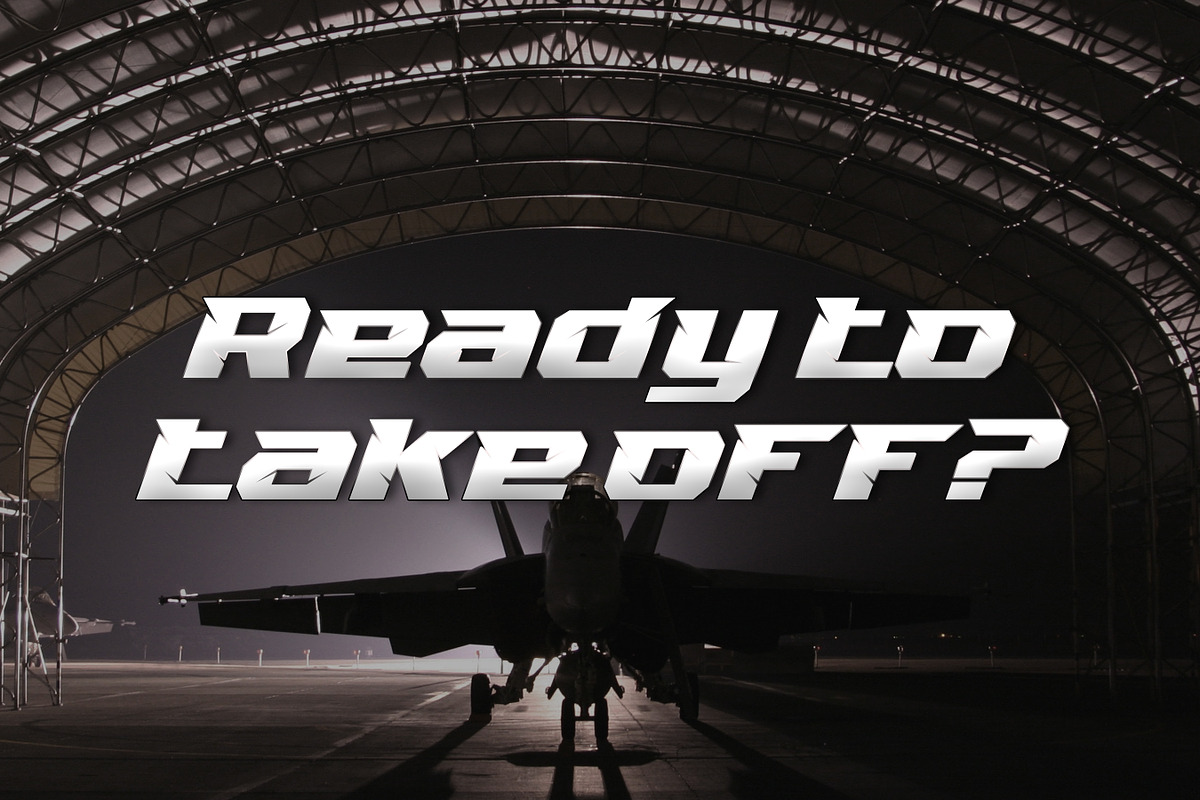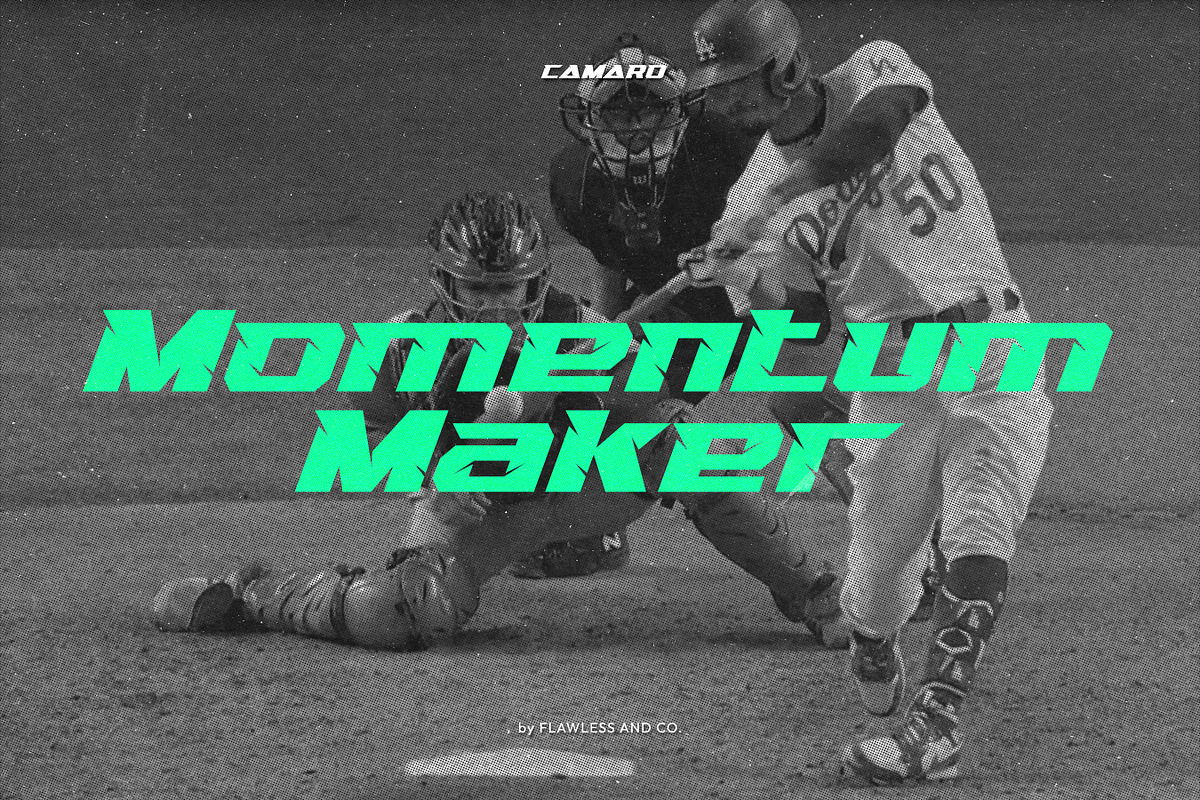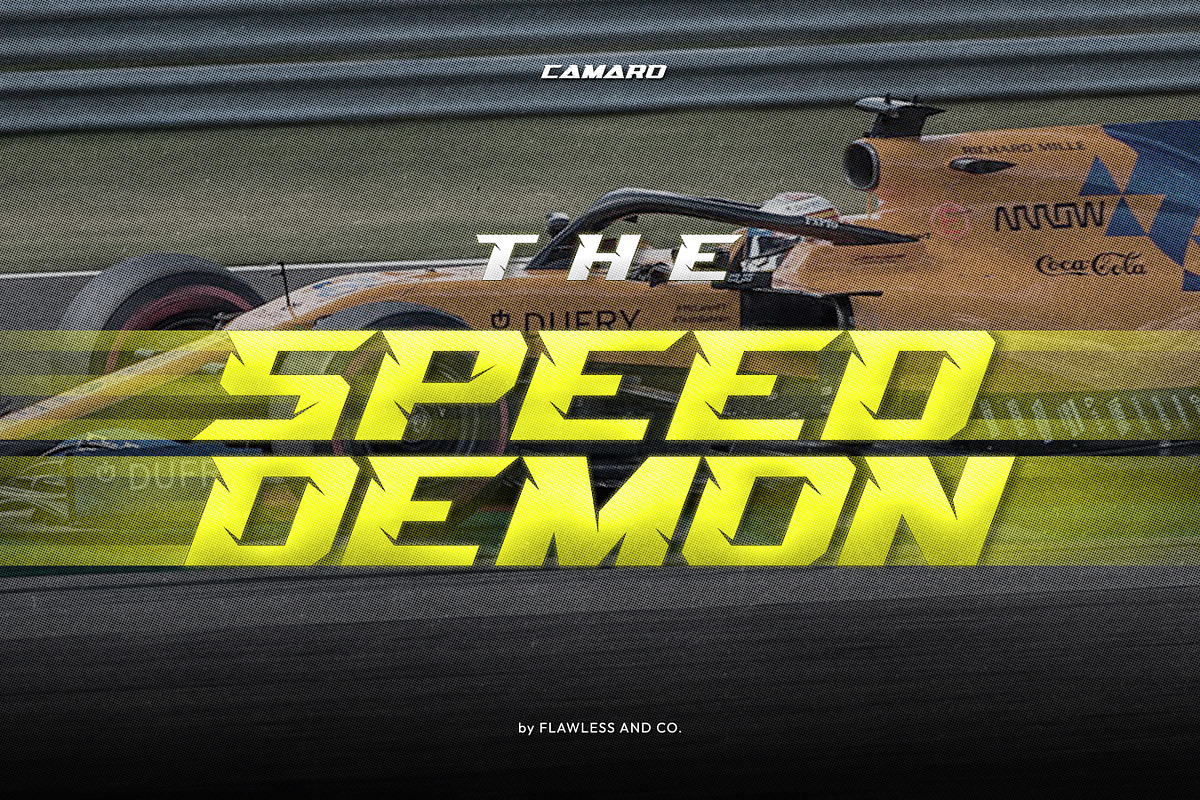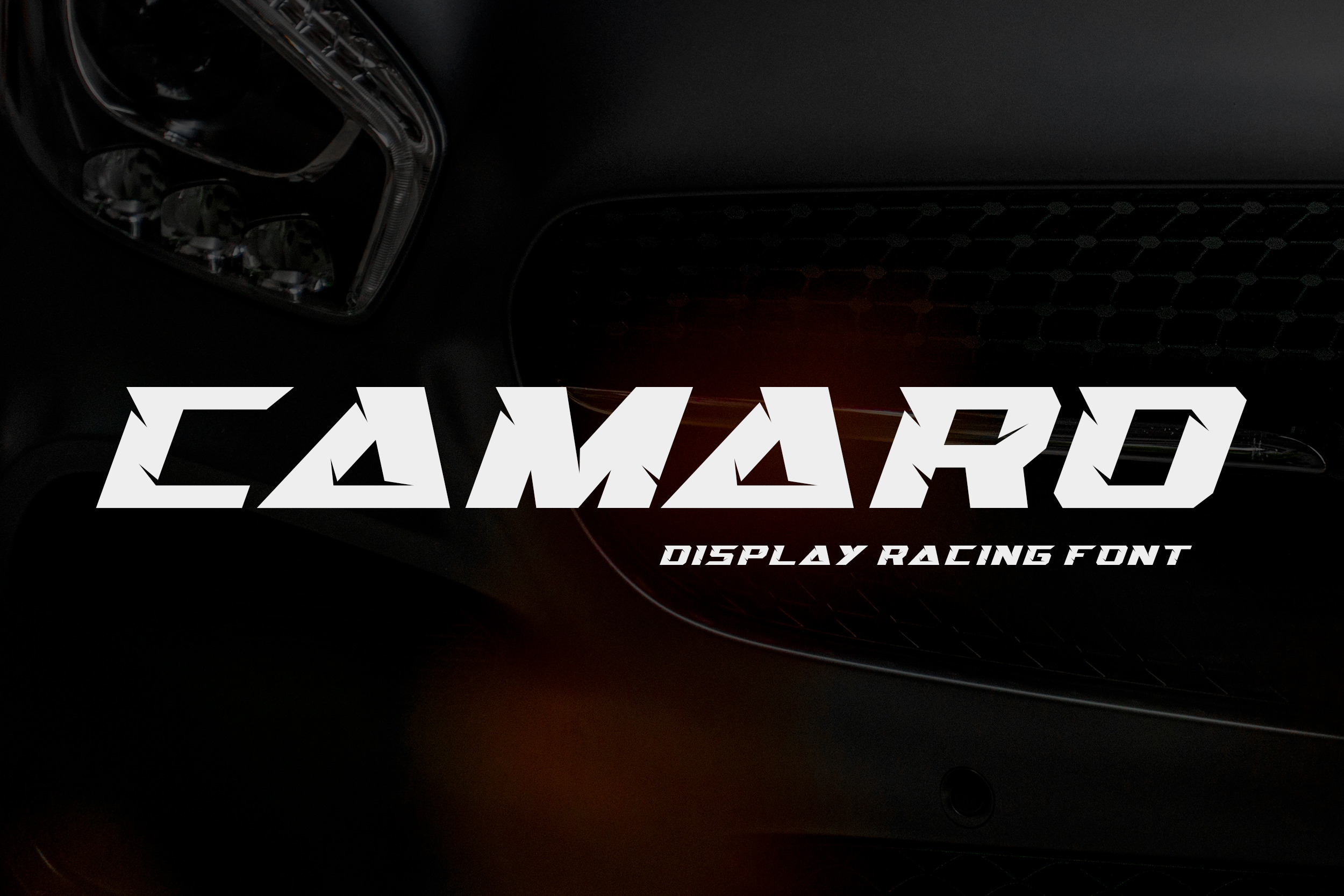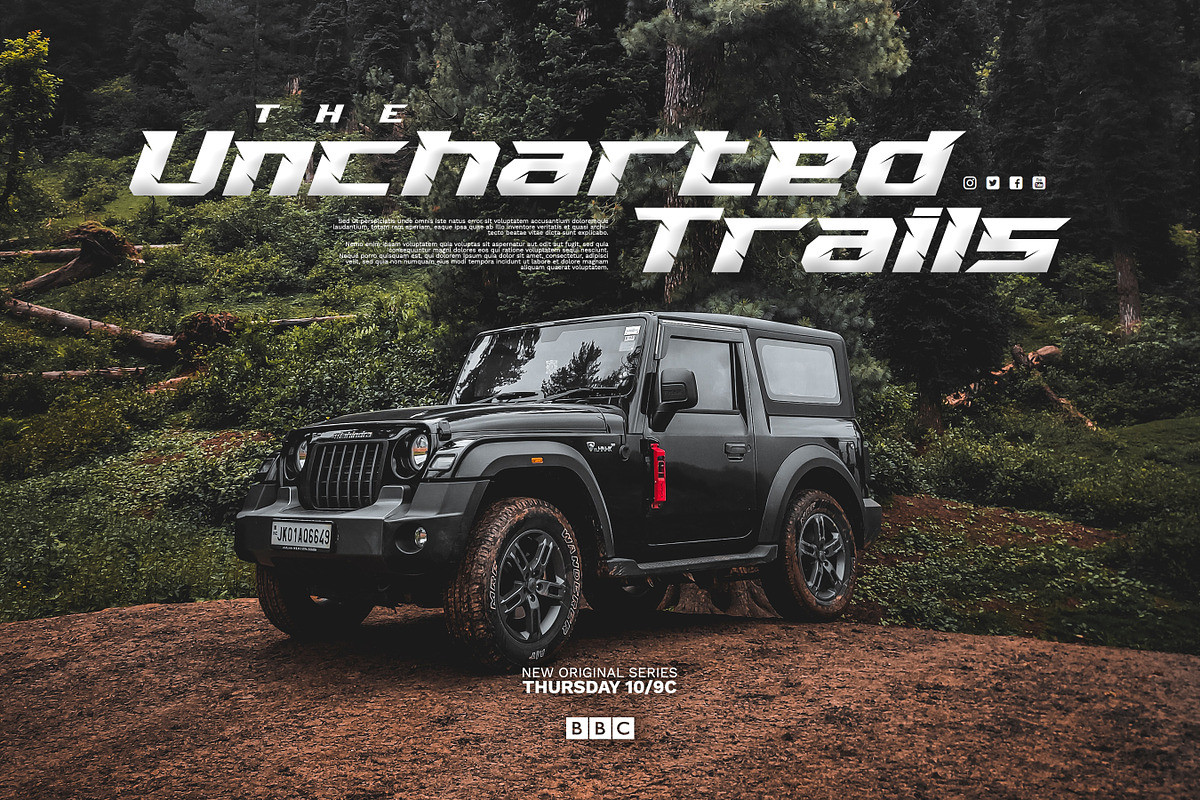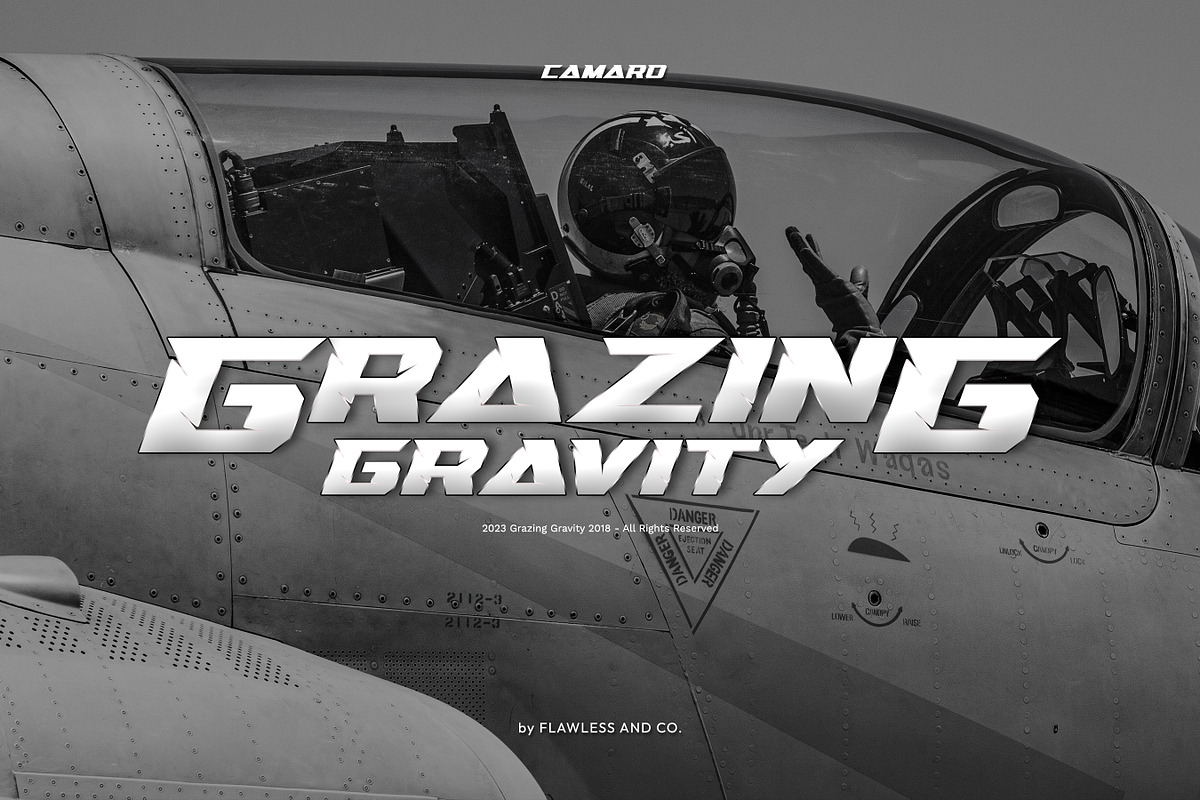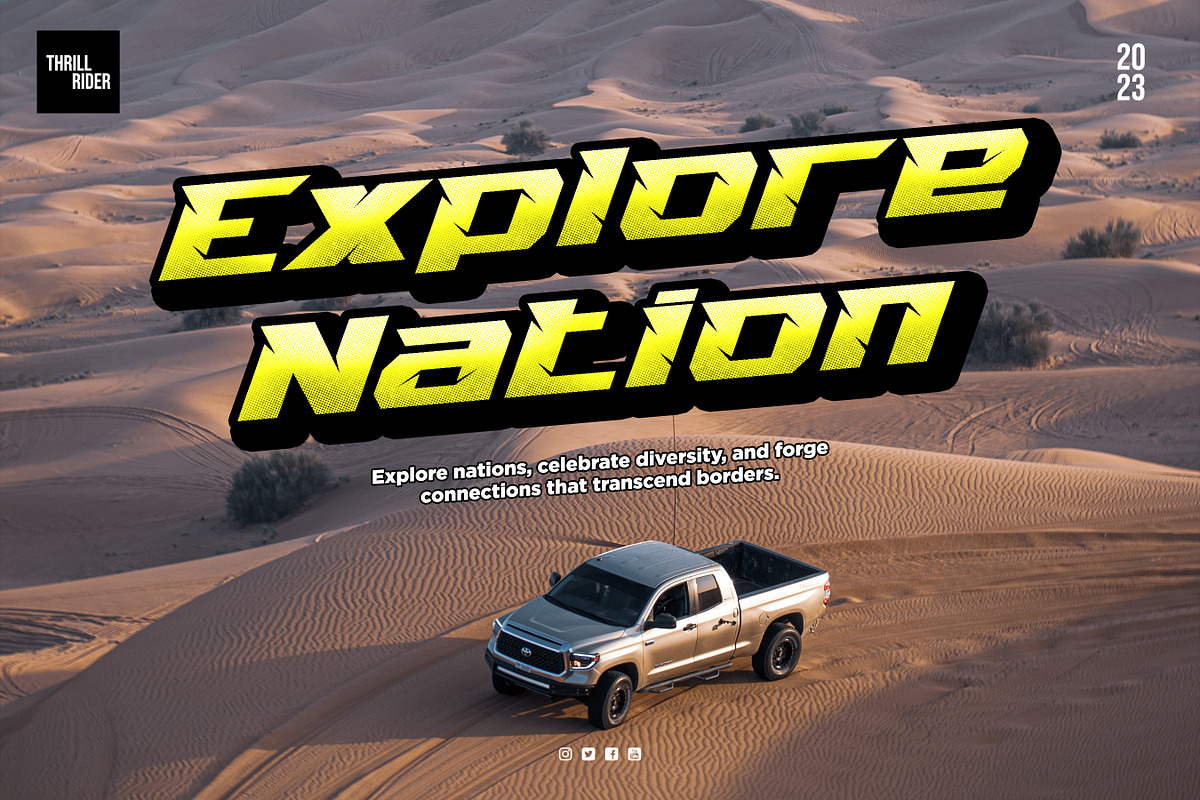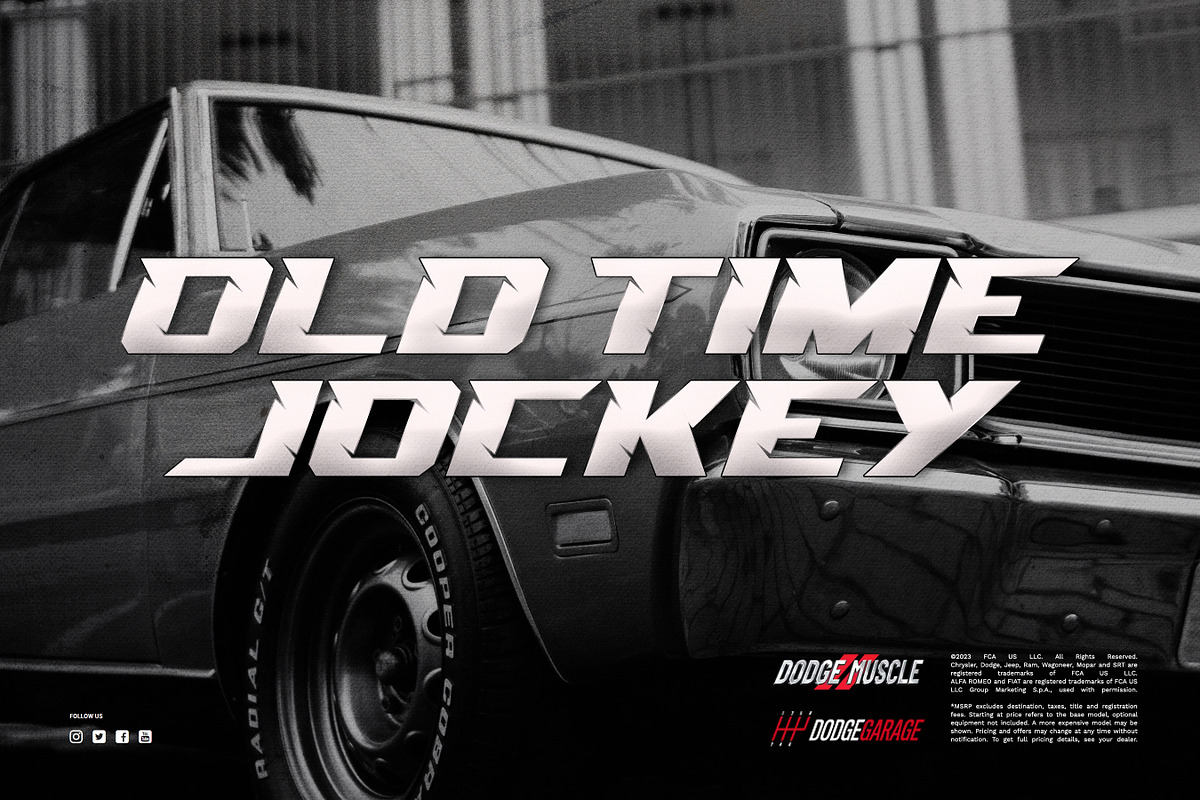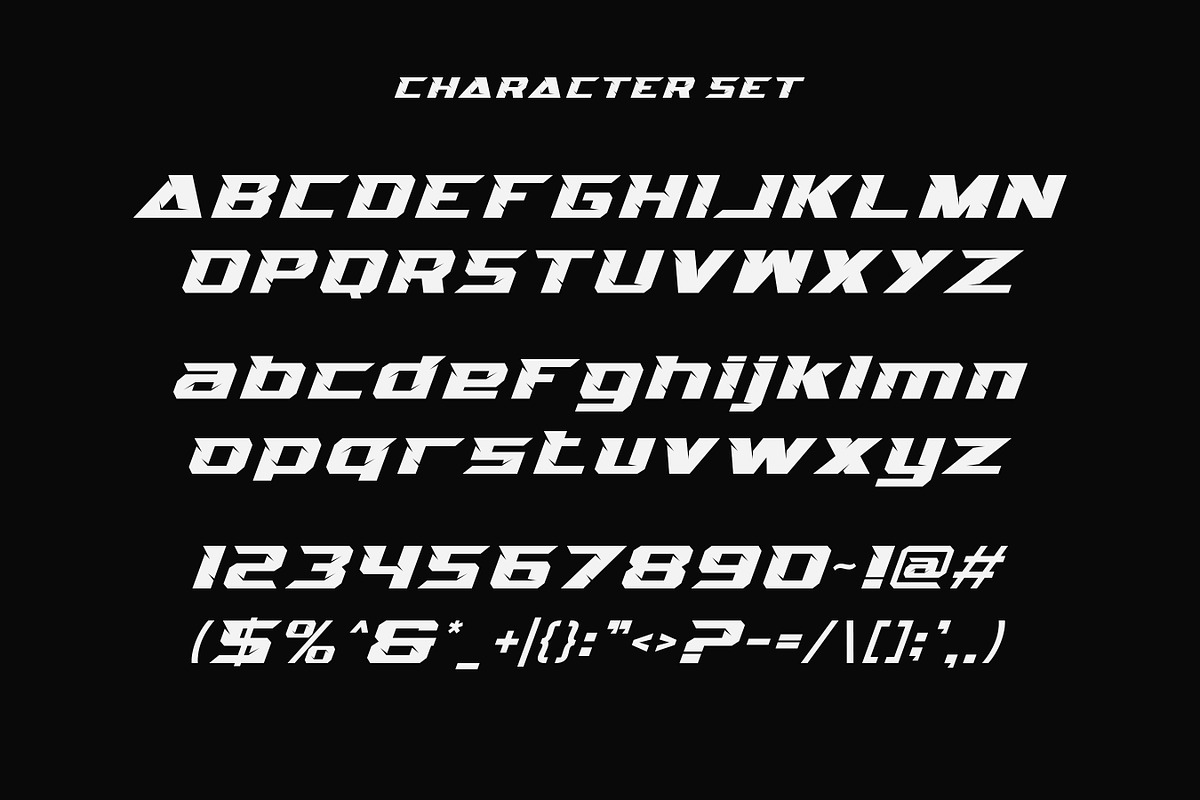
Camaro - Racing Display Font
Introducing "Camaro" - a dynamic and high-octane racing display font that embodies speed, excitement, and adrenaline. Camaro showcases a strong and sleek design that mimics the aerodynamic lines of racing cars. Its bold strokes and sharp edges evoke a sense of speed and movement, making it perfect for race car logos, racing event posters, sports branding, and any design that requires a racing-inspired typographic element.